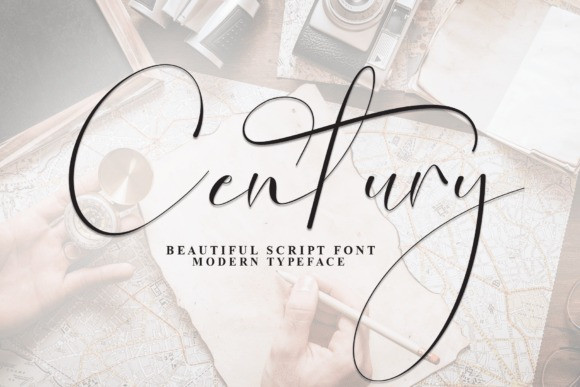
Century Script Font
Designer: Creativewhitee
Century Script Font a beautiful modern script font designed to capture the spirit of exploration and timeless elegance. Its minimalist yet expressive rhythm makes it a perfect choice for travel branding, editorial adventure layouts, luxury wedding invitations, and sophisticated personal signatures.
Whether you are designing a brand identity for a boutique agency or crafting a sentimental message, Century delivers a sense of artistic freedom and refined grace to every word.